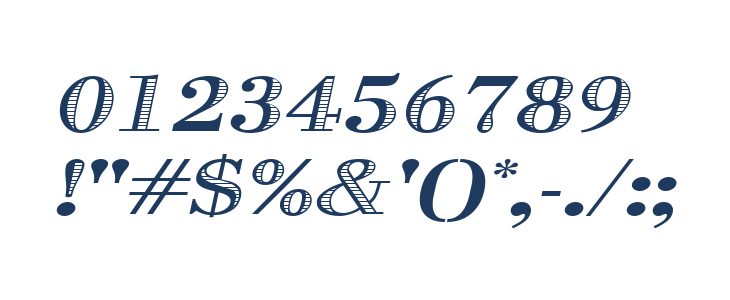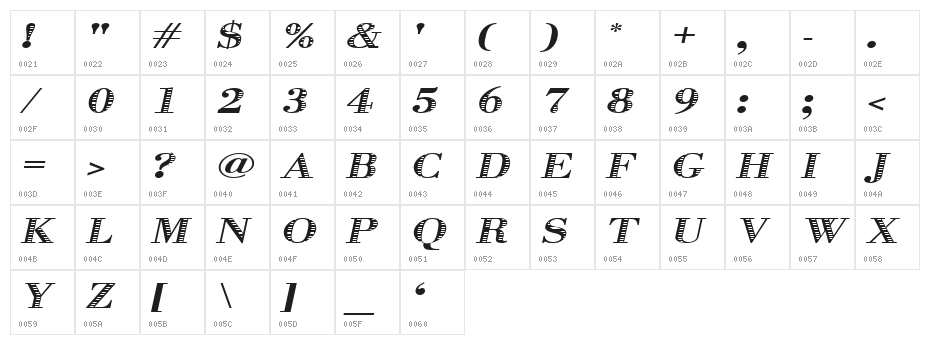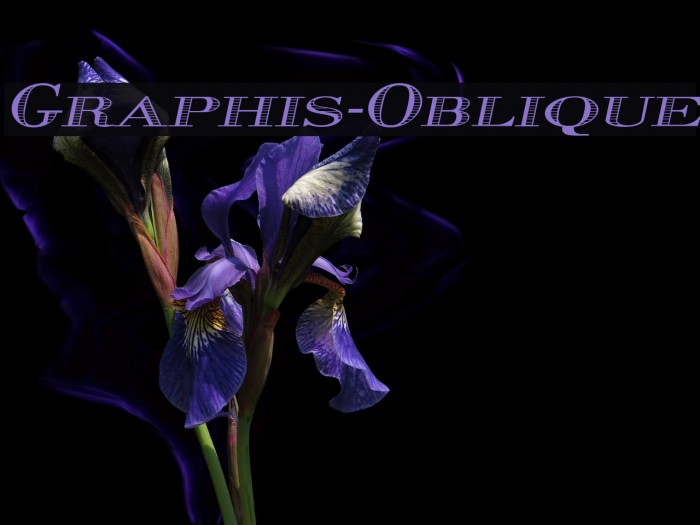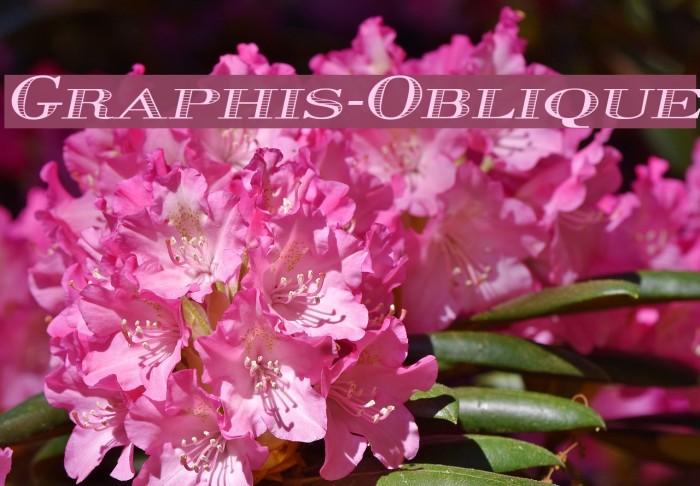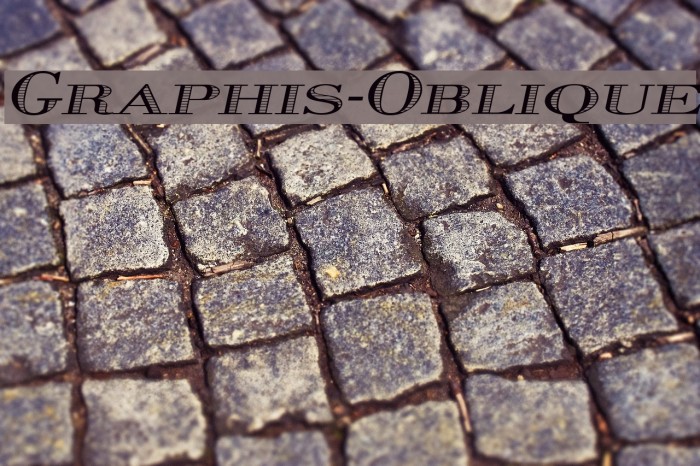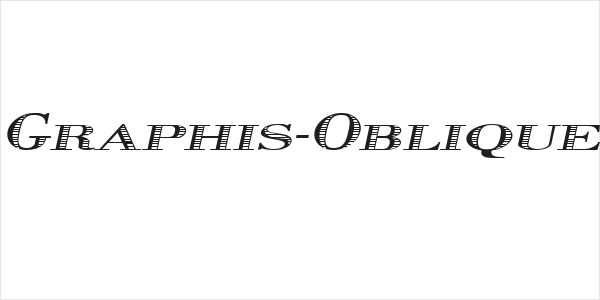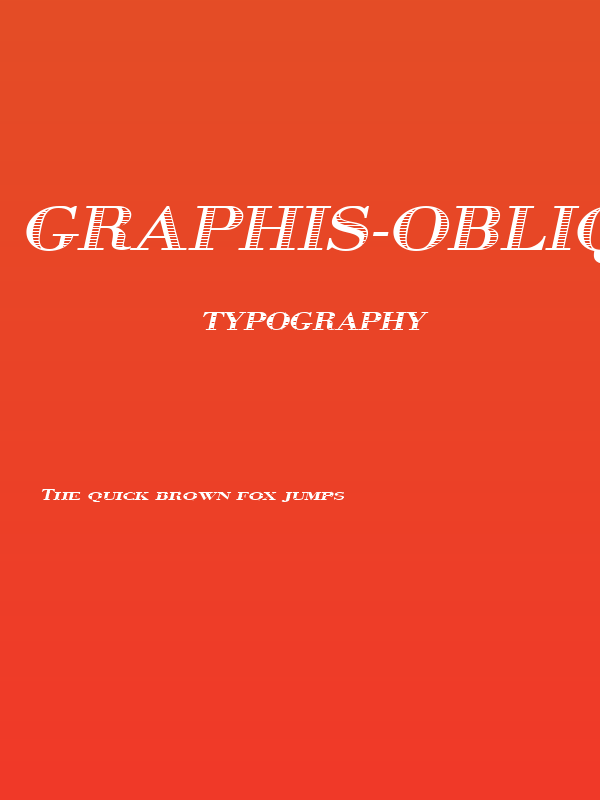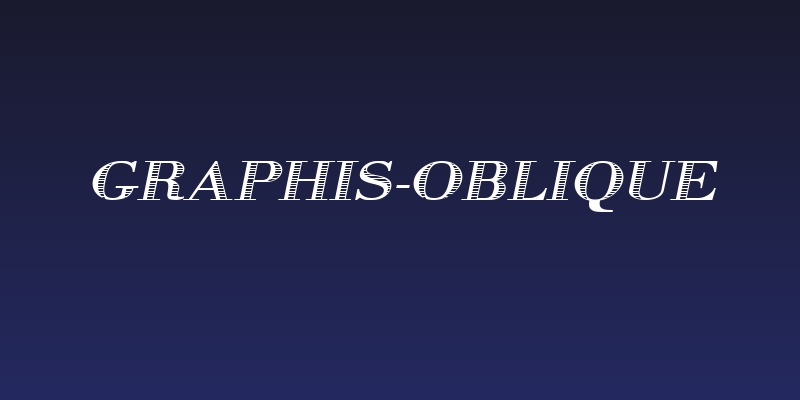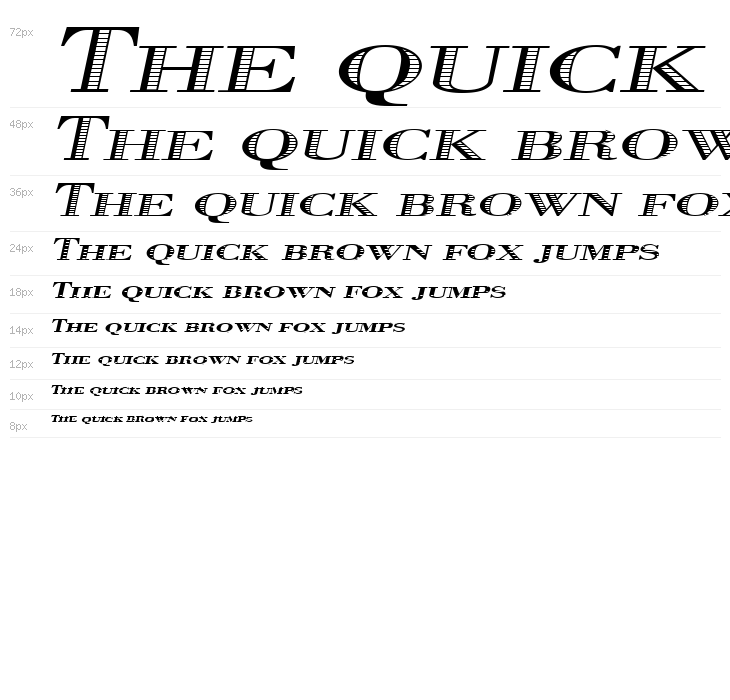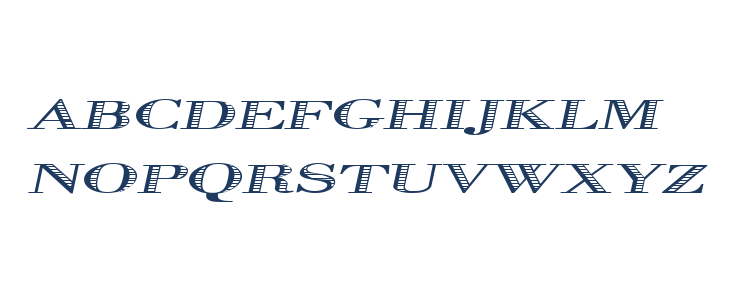
Graphis-Oblique Font
Graphis-Oblique Description
This font features a distinct oblique style with a decorative flair, characterized by its slanted, italicized appearance. The letters are adorned with horizontal lines running through each character, adding a textured, striped effect that enhances its visual interest. The uppercase and lowercase letters maintain a consistent slant, creating a sense of movement and dynamism. The numerals and special characters follow the same stylistic cues, ensuring uniformity across all glyphs. This font's unique design makes it stand out, offering a blend of elegance and boldness that is both eye-catching and sophisticated.